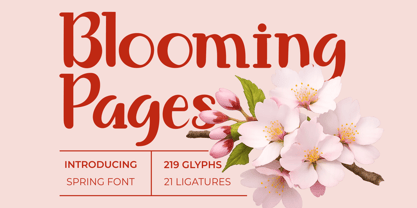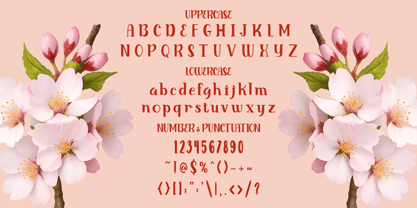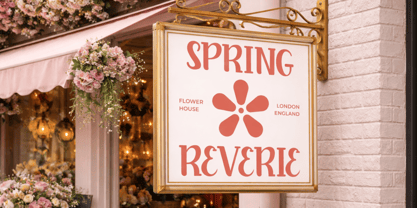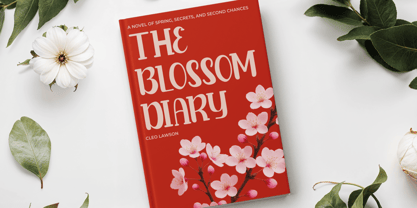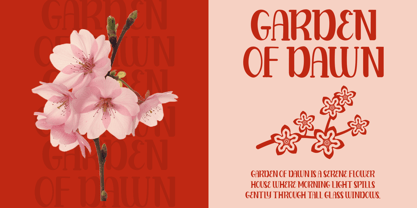
Blooming Pages
by Shanaf
The Blooming Pages Font Family was designed by Yesie Erma Yunita and published by Shanaf. Blooming Pages contains 1 styles. More about this family
Blooming Pages Spring Font blends graceful serif charm with a fresh seasonal mood. The letters appear tall, slim, and softly curved, creating a refined silhouette with clear readability. Stroke contrast feels balanced, while rounded terminals add warmth and a handcrafted touch. Decorative alternates and ligature details bring gentle movement without losing structure. This style feels romantic, botanical, feminine, vintage, and modern at once. It suits branding that needs elegance with personality. Blooming Pages Spring Font works beautifully for wedding planners, flower shops, beauty studios, candle labels, gift stores, event brands, and boutique businesses. Use it for logos that need softness, trust, and memorable character.
The font performs well in headlines, invitations, book covers, greeting cards, packaging, menus, posters, stickers, magazine titles, and social media campaigns. Uppercase letters create graceful statements, while lowercase forms feel friendly and intimate. Narrow proportions help long names stay stylish in limited spaces. Curved serifs and subtle flourishes add decorative appeal for premium storytelling. This typeface matches themes such as spring markets, garden events, bridal collections, romantic cafés, artisan products, and wellness brands. It also suits film titles, quote designs, crafting projects, and storefront signage. Every layout gains a calm, polished, and blooming presence that draws attention naturally.
Designers: Yesie Erma Yunita
Foundry: Shanaf